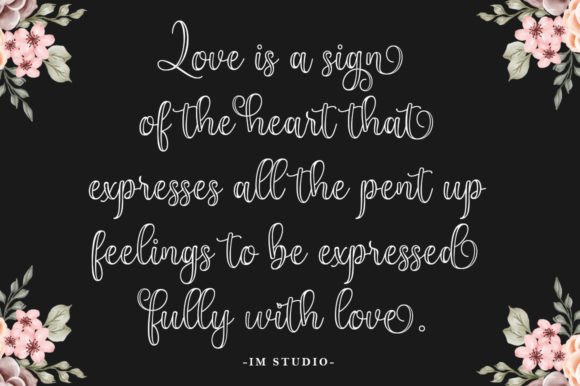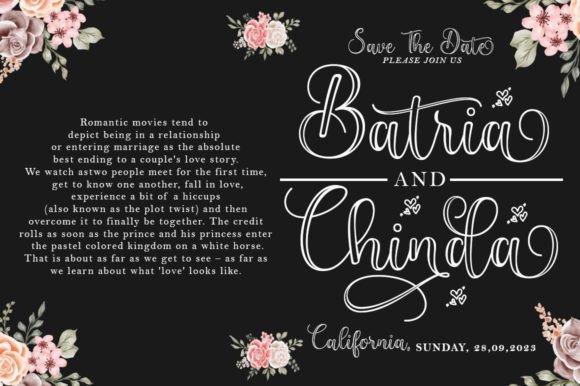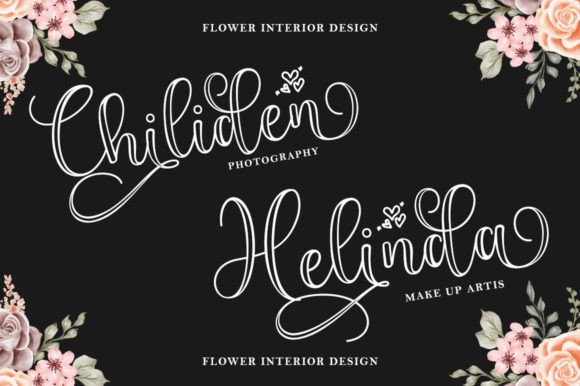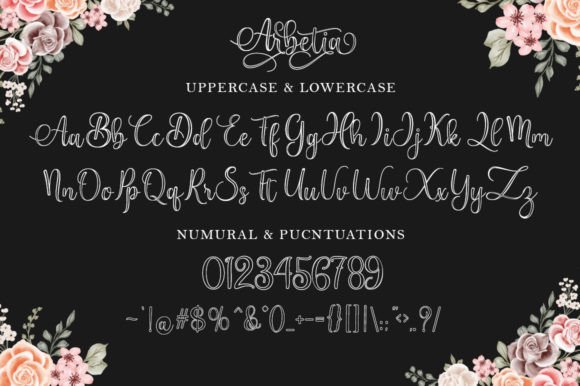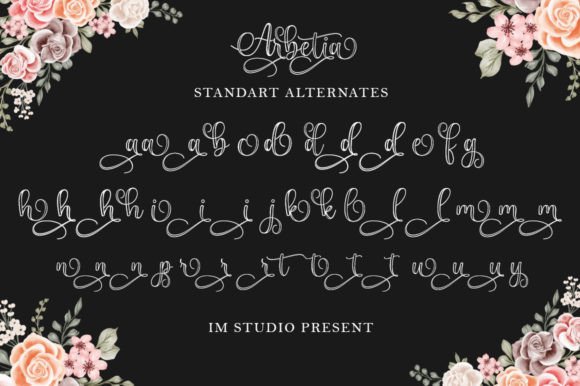
Introduction to Arbetia Font
Have you ever stared at a blank canvas, wondering where to start your next creative project? The blank page can be daunting, but the right design resource can be the spark that ignites your imagination. That’s where the Arbetia Font comes in – a dazzling script font that’s about to become your new favorite companion in the world of design.
With its intricate details and high-quality design, Arbetia Font is the perfect addition to any designer’s library. Whether you’re working on a romantic wedding invitation or a whimsical children’s book, this font has the potential to elevate your creation to new heights. And the best part? It’s PUA coded, making it easy to access all the glyphs and swashes you need to bring your design to life.
Key Features of Arbetia Font
- High-quality design resource ideal for creative projects, offering a unique and elegant aesthetic.
- Includes a comprehensive character set, making it suitable for a wide range of creative projects, from logos to typography.
- Arbetia Font’s unique characteristics make it stand out as a distinctive design resource for creative professionals and enthusiasts alike.
Honest Review: Arbetia Font
I recently came across the Arbetia Font and I must say it’s a lovely addition to any designer’s toolkit. This free download is a high-quality design resource that’s perfect for a creative project.
- ✨ Clean and modern design that’s perfect for minimalist projects.
- ⚠️ Limited character set, which may not be ideal for projects that require a wide range of special characters.
Overall, I’m quite impressed with the Arbetia Font. It’s a great design resource for personal projects or small-scale commercial ventures. While it has its limitations, it’s a high-quality font that’s definitely worth checking out.
The Arbetia Font is ideal for a variety of creative projects, including:
- Reports
- Brochures
- Posters